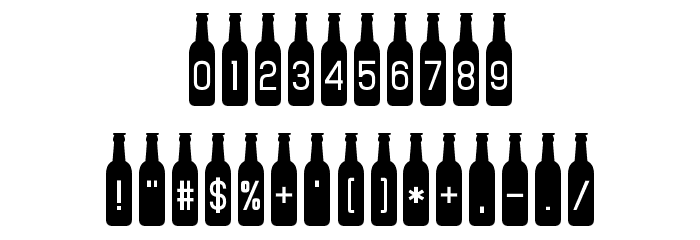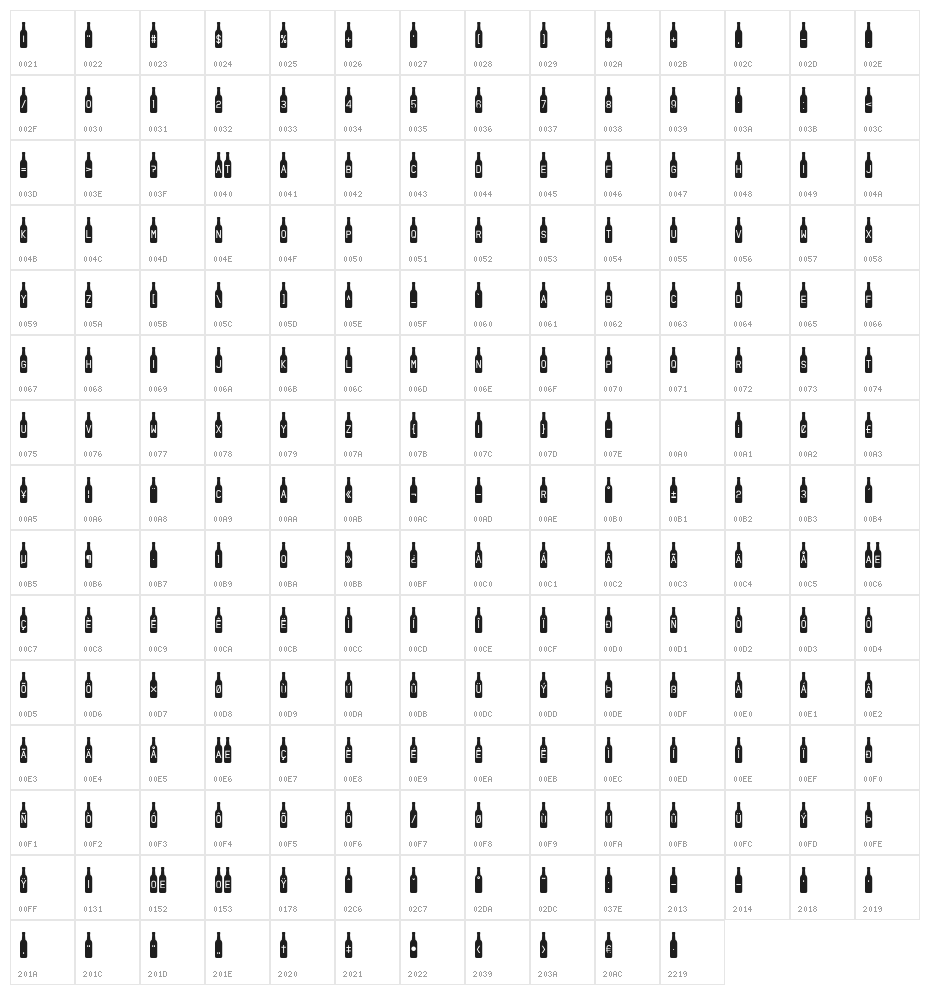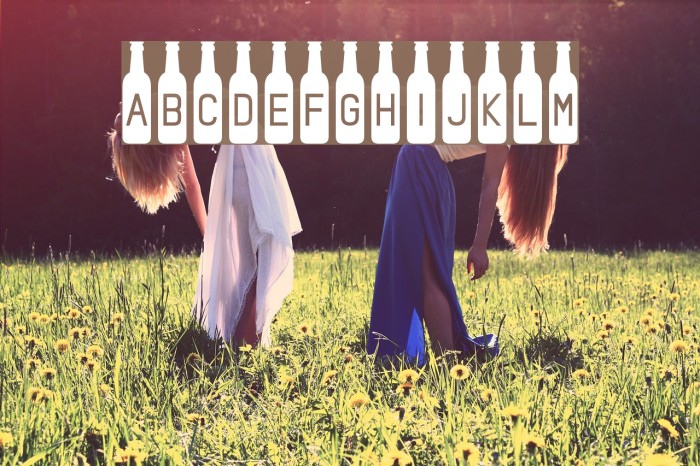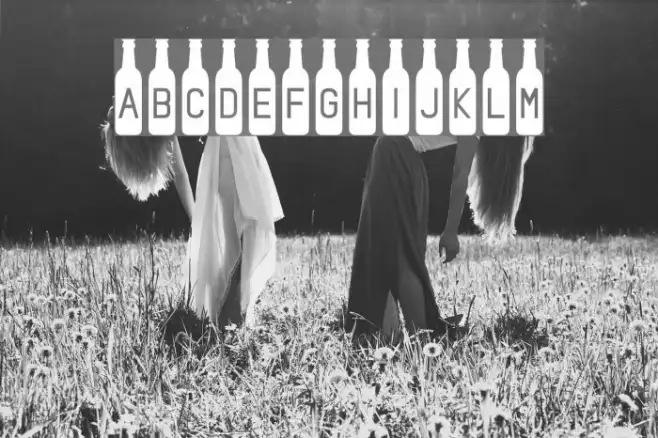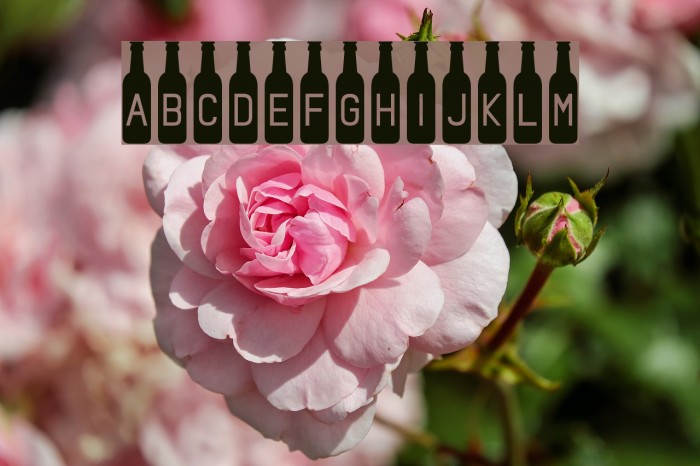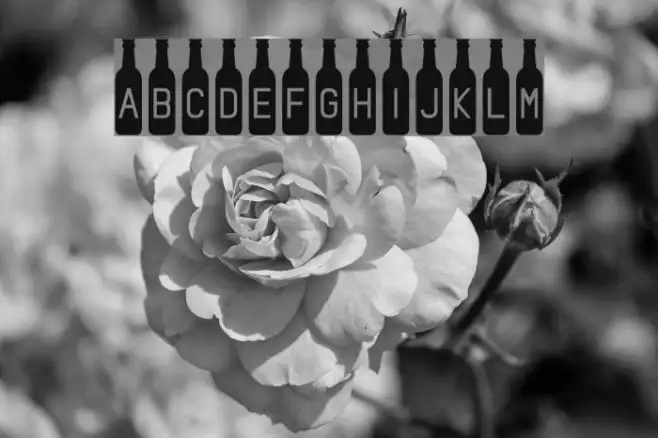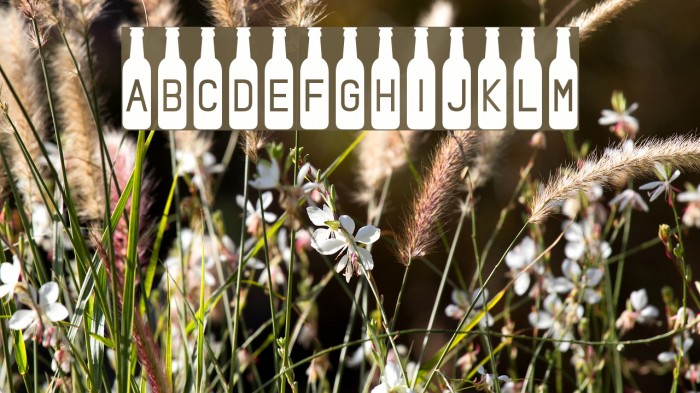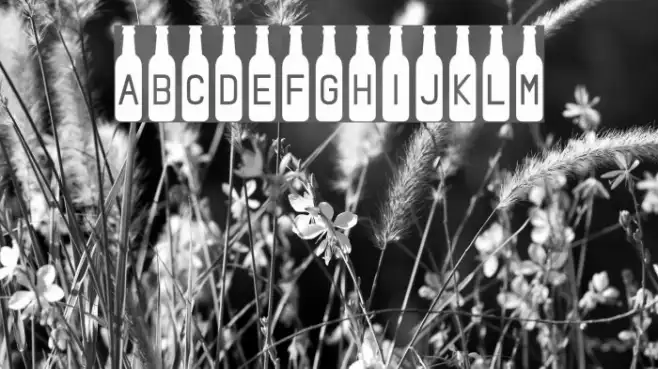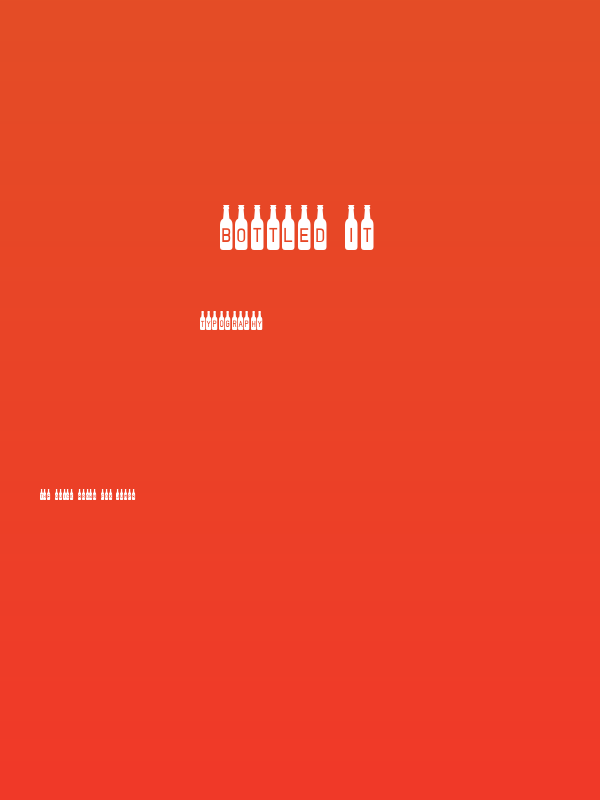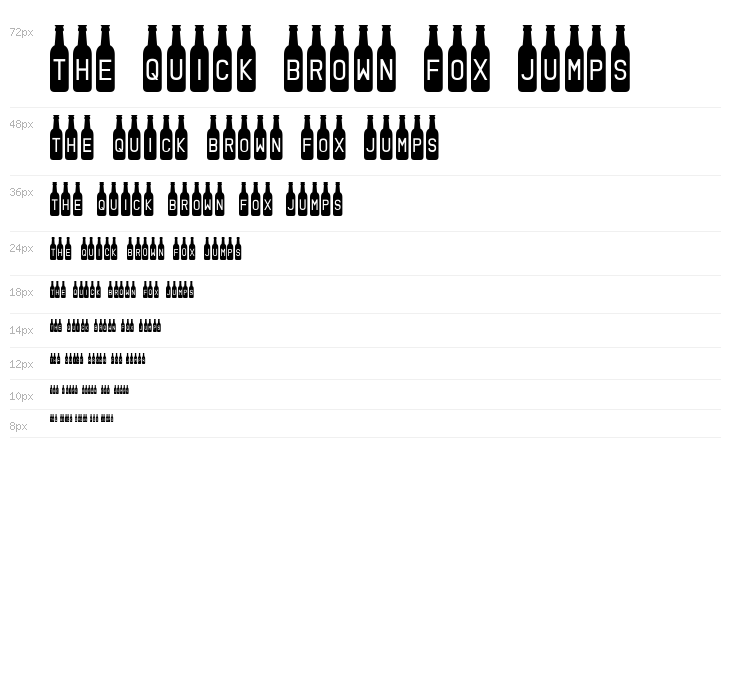
Bottled It Font
Bottled It Description
This playful and creative font features characters enclosed within bottle shapes, giving it a unique and eye-catching appearance. The letters and numbers are bold and clear, making them easily readable despite the decorative element. The font maintains a consistent style across all characters, with each letter and number fitting perfectly within the silhouette of a bottle. This design adds a whimsical touch, making it ideal for projects that require a fun and distinctive look. The font includes a full set of uppercase and lowercase letters, numbers, and a variety of special characters, all maintaining the bottle motif.
| Proposed Projects | Ideal for beverage branding, party invitations, bar menus, and any project needing a fun, thematic touch. |